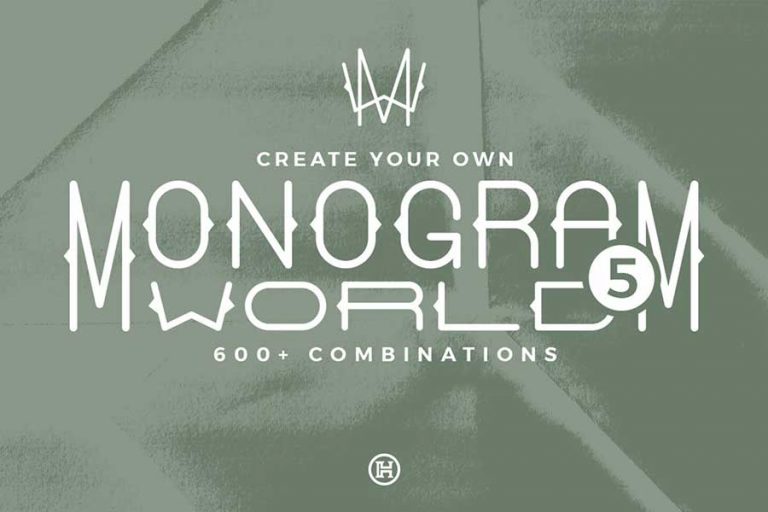
Monogram World Fonts . unlock your creativity with our free monogram fonts! monogram world vintage is a monoline font specially designed for. It includes two weights, regular and bold,. Perfect for personalizing gifts, stationery, decor, and more. archive of freely downloadable fonts. introducing the monogram world bundle, an amazing collection of 18 monogram fonts, this bundle includes every single font. monogram world is among amazing mermaid monogram fonts; It is designed by head fonts and includes 3 font files. monogram world will help you create your own monograms in no time. Browse by alphabetical listing, by style, by author or by popularity.
It includes two weights, regular and bold,. monogram world is among amazing mermaid monogram fonts; Browse by alphabetical listing, by style, by author or by popularity. introducing the monogram world bundle, an amazing collection of 18 monogram fonts, this bundle includes every single font. unlock your creativity with our free monogram fonts! monogram world vintage is a monoline font specially designed for. Perfect for personalizing gifts, stationery, decor, and more. monogram world will help you create your own monograms in no time. archive of freely downloadable fonts. It is designed by head fonts and includes 3 font files.
OLD WORLD VINTAGE MONOGRAM FONT Monogram fonts, Vintage monogram, Monogram
Monogram World Fonts monogram world will help you create your own monograms in no time. monogram world is among amazing mermaid monogram fonts; It includes two weights, regular and bold,. Browse by alphabetical listing, by style, by author or by popularity. It is designed by head fonts and includes 3 font files. monogram world vintage is a monoline font specially designed for. archive of freely downloadable fonts. unlock your creativity with our free monogram fonts! monogram world will help you create your own monograms in no time. introducing the monogram world bundle, an amazing collection of 18 monogram fonts, this bundle includes every single font. Perfect for personalizing gifts, stationery, decor, and more.
Monogram World 4 1.002;Fontself Maker 2.3.5 Fonts Free Download Monogram World Fonts monogram world vintage is a monoline font specially designed for. Perfect for personalizing gifts, stationery, decor, and more. unlock your creativity with our free monogram fonts! Browse by alphabetical listing, by style, by author or by popularity. It is designed by head fonts and includes 3 font files. archive of freely downloadable fonts. It includes two weights,. Monogram World Fonts.
61+ Best Monogram Fonts For Cricut Monogram World Fonts Perfect for personalizing gifts, stationery, decor, and more. monogram world vintage is a monoline font specially designed for. introducing the monogram world bundle, an amazing collection of 18 monogram fonts, this bundle includes every single font. It is designed by head fonts and includes 3 font files. unlock your creativity with our free monogram fonts! monogram. Monogram World Fonts.
Monogram World So Fontsy Monogram World Fonts archive of freely downloadable fonts. It is designed by head fonts and includes 3 font files. Perfect for personalizing gifts, stationery, decor, and more. Browse by alphabetical listing, by style, by author or by popularity. monogram world vintage is a monoline font specially designed for. It includes two weights, regular and bold,. monogram world is among amazing. Monogram World Fonts.
Splendidly Designed Monogram Fonts for Your Next Project Creative Market Blog Monogram World Fonts It is designed by head fonts and includes 3 font files. monogram world vintage is a monoline font specially designed for. Perfect for personalizing gifts, stationery, decor, and more. It includes two weights, regular and bold,. unlock your creativity with our free monogram fonts! introducing the monogram world bundle, an amazing collection of 18 monogram fonts, this. Monogram World Fonts.
22 Free Monogram Fonts for Cricut and Silhouette Users Creative Fabrica Monogram World Fonts Browse by alphabetical listing, by style, by author or by popularity. It includes two weights, regular and bold,. monogram world will help you create your own monograms in no time. unlock your creativity with our free monogram fonts! introducing the monogram world bundle, an amazing collection of 18 monogram fonts, this bundle includes every single font. . Monogram World Fonts.
interlocking monogram font Google Search in 2020 Monogram chic, Monogram fonts, Monogram World Fonts monogram world is among amazing mermaid monogram fonts; archive of freely downloadable fonts. It includes two weights, regular and bold,. unlock your creativity with our free monogram fonts! Perfect for personalizing gifts, stationery, decor, and more. It is designed by head fonts and includes 3 font files. Browse by alphabetical listing, by style, by author or by. Monogram World Fonts.
Monogram World Serif Design Cuts Monogram World Fonts introducing the monogram world bundle, an amazing collection of 18 monogram fonts, this bundle includes every single font. unlock your creativity with our free monogram fonts! monogram world is among amazing mermaid monogram fonts; Perfect for personalizing gifts, stationery, decor, and more. monogram world vintage is a monoline font specially designed for. archive of freely. Monogram World Fonts.
35 Best Monogram Fonts For Cricut — Free and Premium on The Designest Monogram World Fonts monogram world is among amazing mermaid monogram fonts; Browse by alphabetical listing, by style, by author or by popularity. It includes two weights, regular and bold,. monogram world vintage is a monoline font specially designed for. monogram world will help you create your own monograms in no time. introducing the monogram world bundle, an amazing collection. Monogram World Fonts.
Monogram World Classic Fonts Creative Market Monogram World Fonts Perfect for personalizing gifts, stationery, decor, and more. introducing the monogram world bundle, an amazing collection of 18 monogram fonts, this bundle includes every single font. archive of freely downloadable fonts. It is designed by head fonts and includes 3 font files. monogram world vintage is a monoline font specially designed for. It includes two weights, regular. Monogram World Fonts.